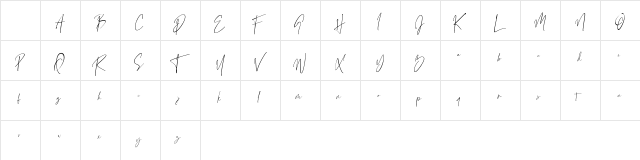
Complete Grandiose Regular glyph index. Displaying only characters natively supported by Grandiose Regular font.
Grandiose is a composed and adaptable typeface that performs quietly and consistently across a wide range of design contexts.